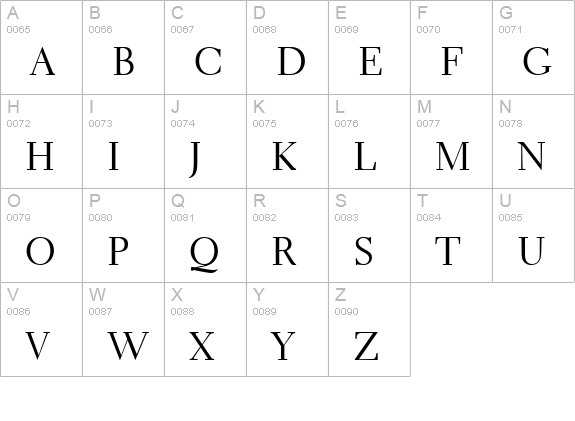
Transit 2 Normal Font Details
Transit 2 Normal is the standard, neutral variant in the Transit typeface family \xE2\x80\x94 well suited to general body text, paragraphs, and standard typographic work.